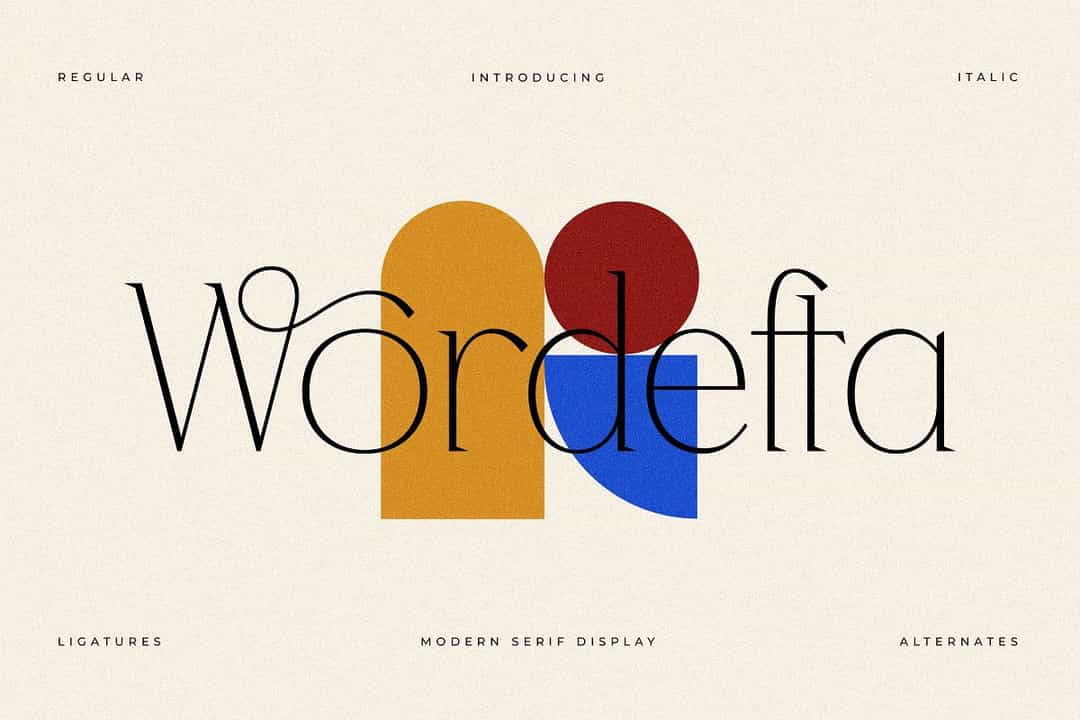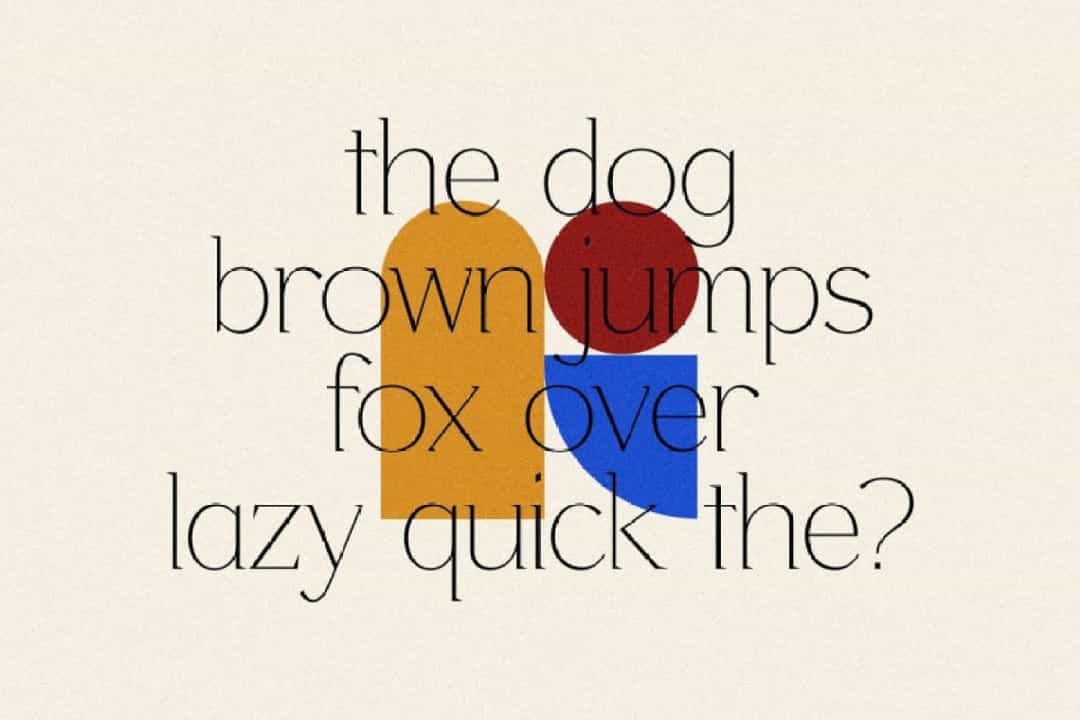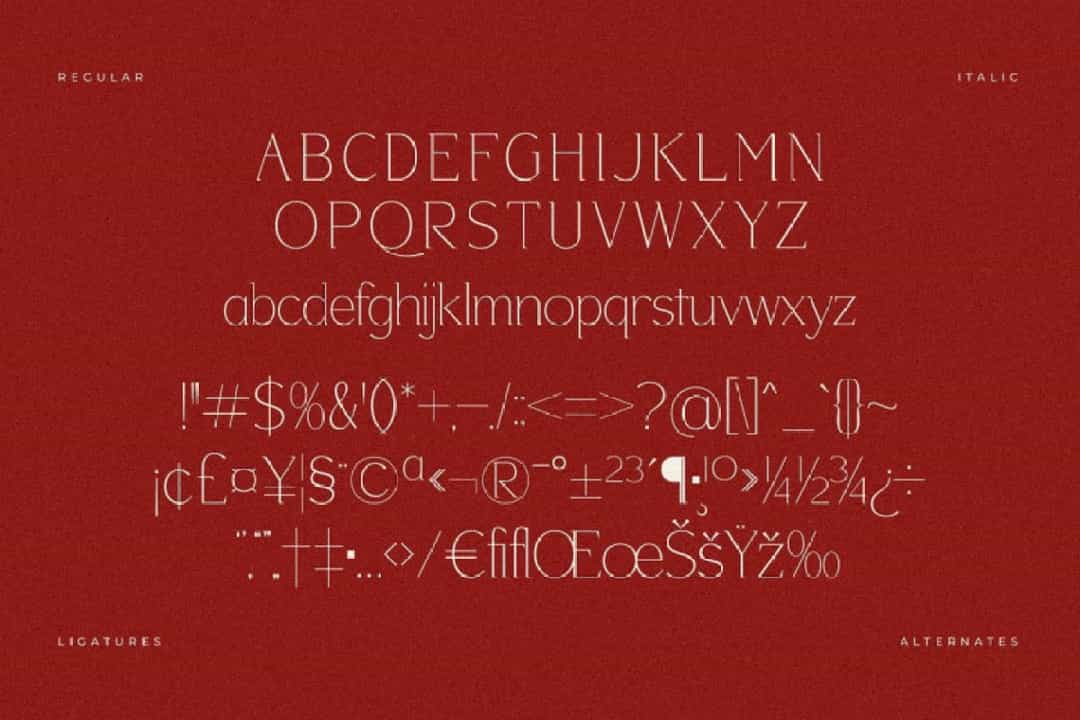
Wordefta can be described as an elegant and contemporary serif typeface with its own distinct style and appearance. Perfect for sophisticated logo designs, movie or book name designs, fashion brand clothing designs, magazine letters, quotes, and much more, this typeface makes an impactful statement wherever used.